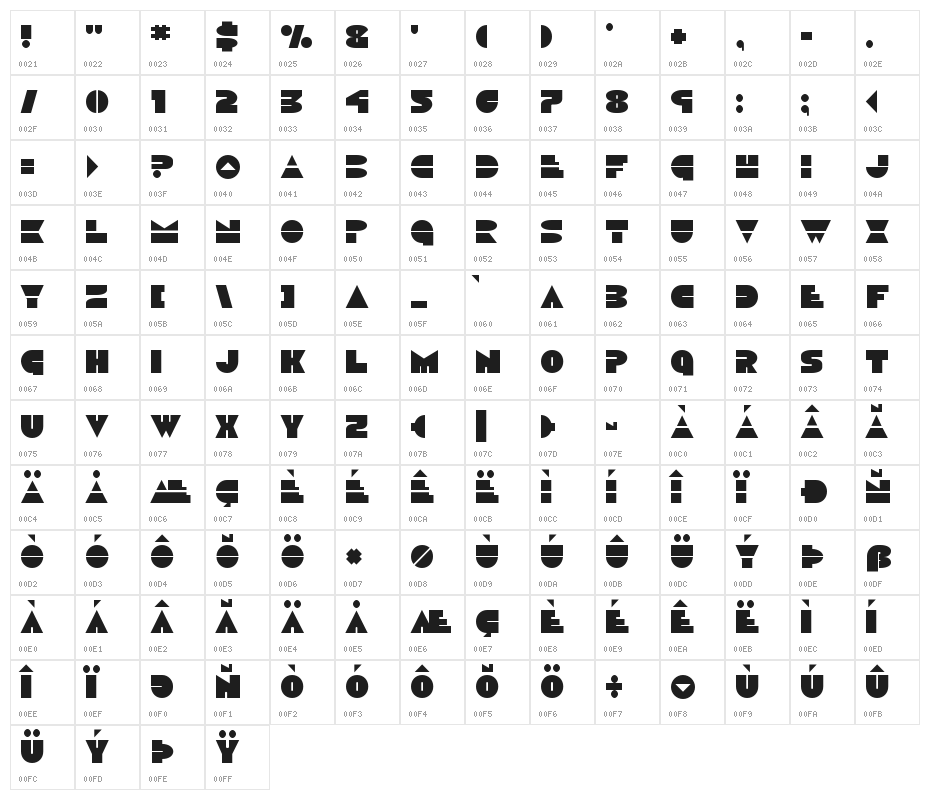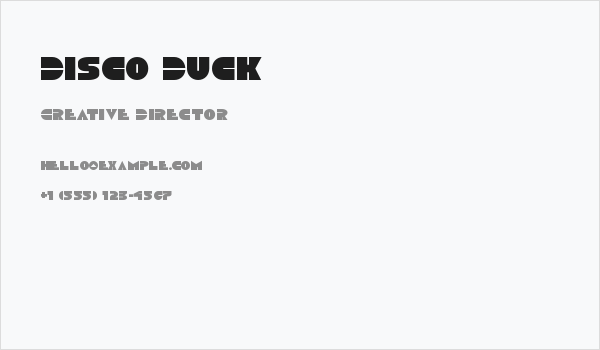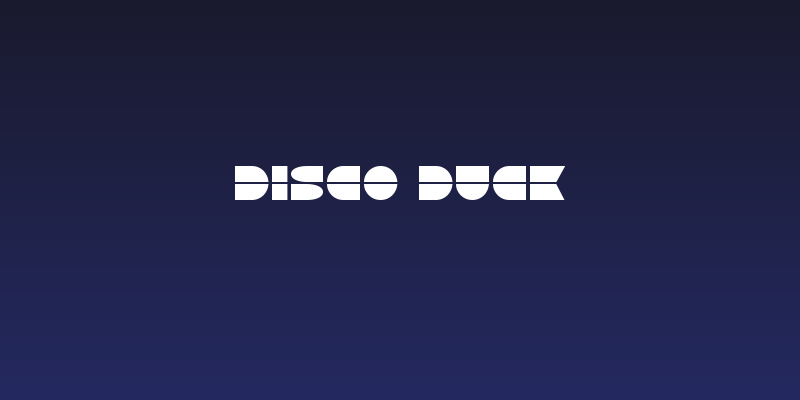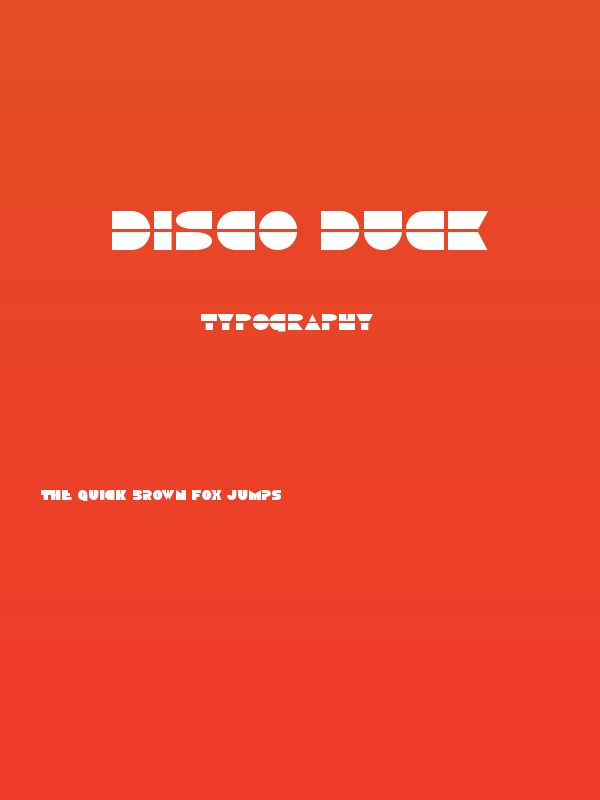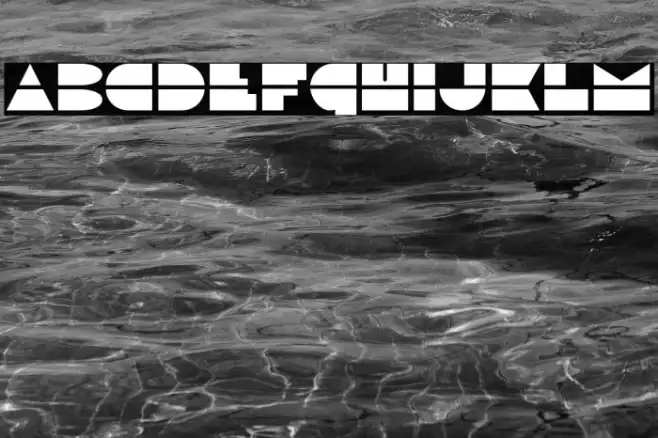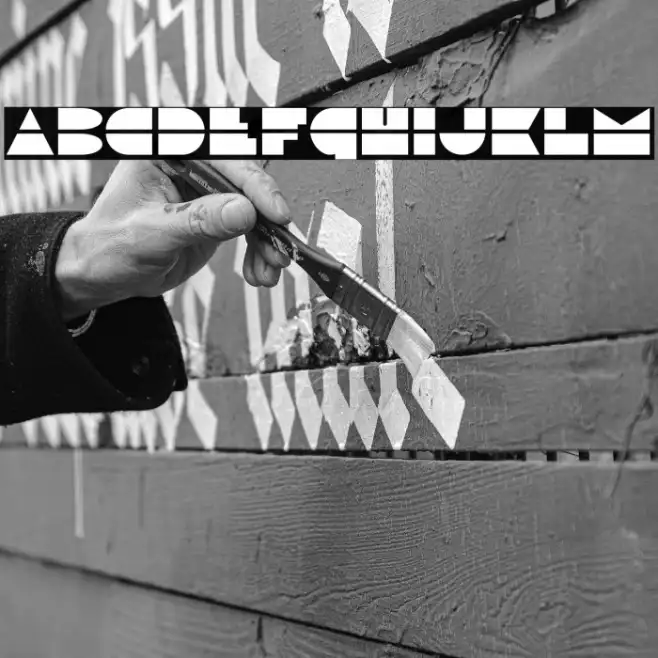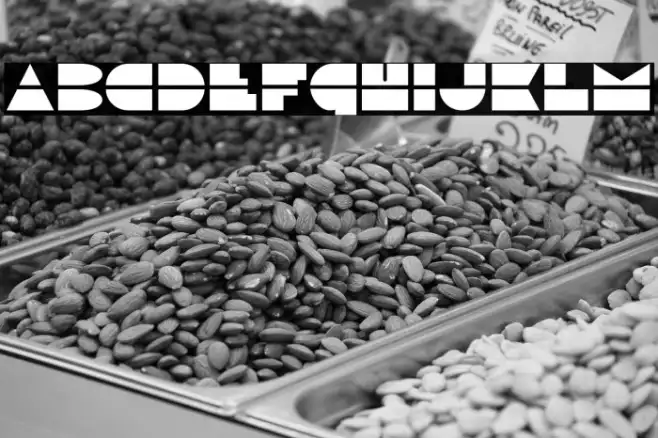
Disco Duck Font
Disco Duck Description
This font features a bold and geometric design with a distinctly modern and futuristic aesthetic. The characters are constructed with sharp angles and clean lines, creating a sense of movement and energy. The uppercase letters are particularly striking, with a blocky and robust appearance that commands attention. The numbers and special characters maintain this bold style, ensuring consistency across all glyphs. The font's unique style makes it ideal for projects that require a strong visual impact.